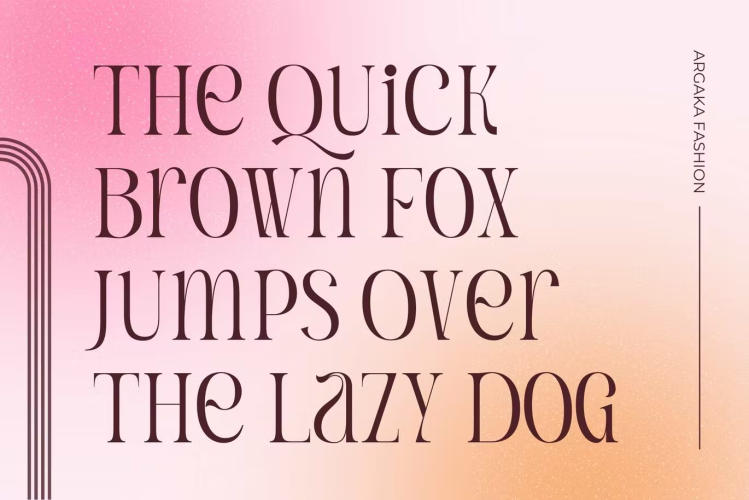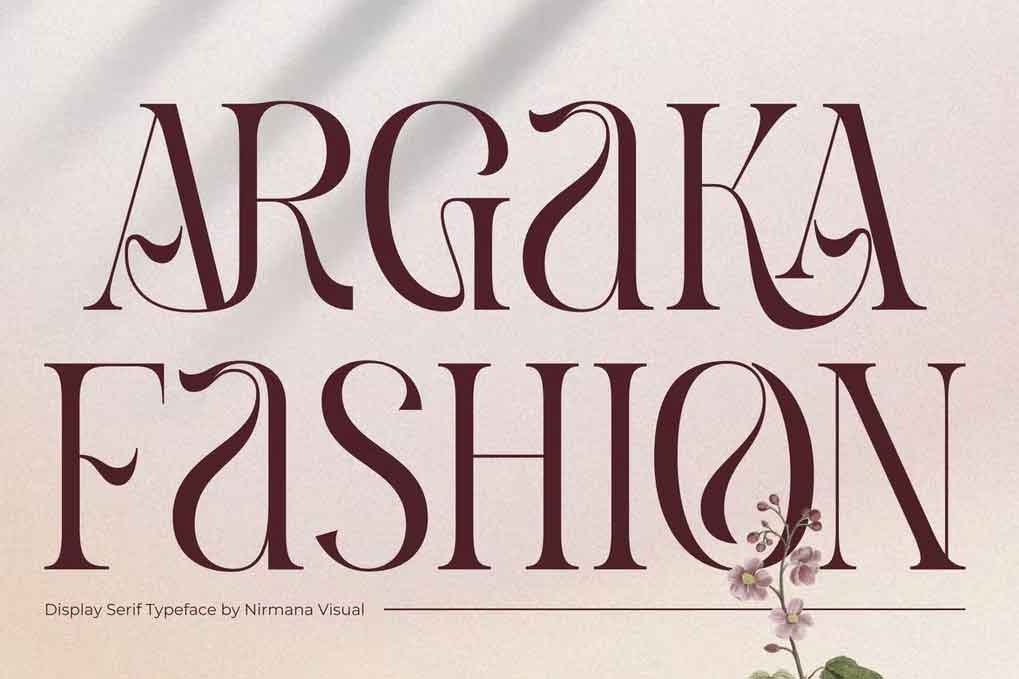
Argaka Fashion Font
Argaka Fashion, contemporary of Serif Display font,
Argaka Fashion offers beautiful typographic harmony for a diversity of design projects, including logos & branding, social media posts, advertisements & product designs.
Where Argaka Fashion Font works best
Reports, white papers and book interiors hold the eye longer when the text face has real serifs; Argaka Fashion Font keeps that rhythm without looking old-fashioned.
Food, spirits and cosmetics brands lean on serif wordmarks to suggest age and care. Argaka Fashion Font gives that signal at wordmark size.
Set Argaka Fashion Font for the body of an award or a diploma and keep the recipient name in a script; the pairing is what makes a document feel official.
What kind of work does Argaka Fashion Font suit?
It sits in the Serif Fonts group and reads as branding, contemporary, display, modern. That makes it a candidate wherever those qualities help: headings, packaging, social graphics and brand work. Set it at the size you plan to use before deciding.